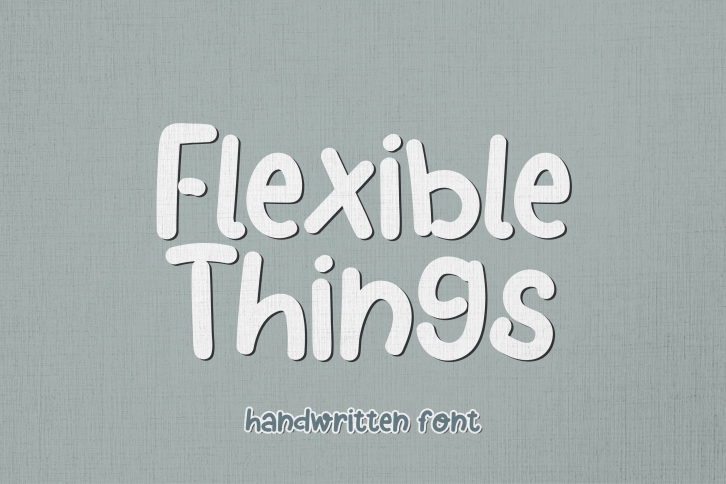
Flexible Things - A Bouncy Handwritten Font Download
Flexible Things is a beautiful font that was designed by WADLEN. It's a great choice for designers and creatives who need such a font. It was released on December 14, 2020 and the file size is 15.22 MB. Flexible Things may give a more youthful, expressive and casual look to your project. It is a very beautiful, refined, elegant, and high-quality font.